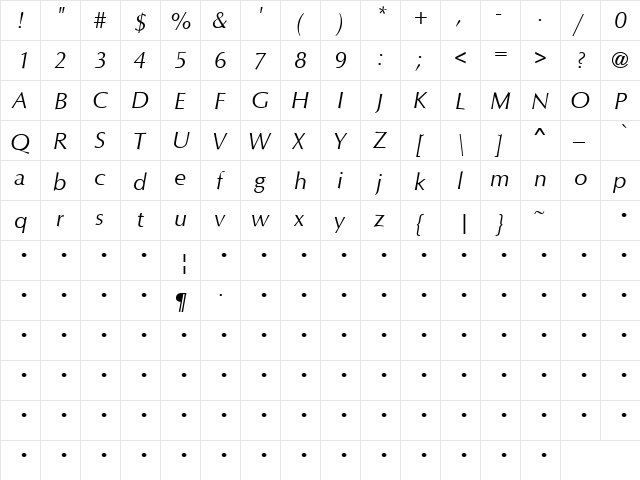
QTOptimum Italic
Design Context for QTOptimum Typeface
QTOptimum is a composed and adaptable typeface that performs quietly and consistently across a wide range of design contexts. Its italic angle brings a sense of urgency and motion to the letterforms.
Pro Tip: Try QTOptimum for annotation and caption copy alongside an upright companion — the contrast in angle creates a dynamic but ordered typographic system.